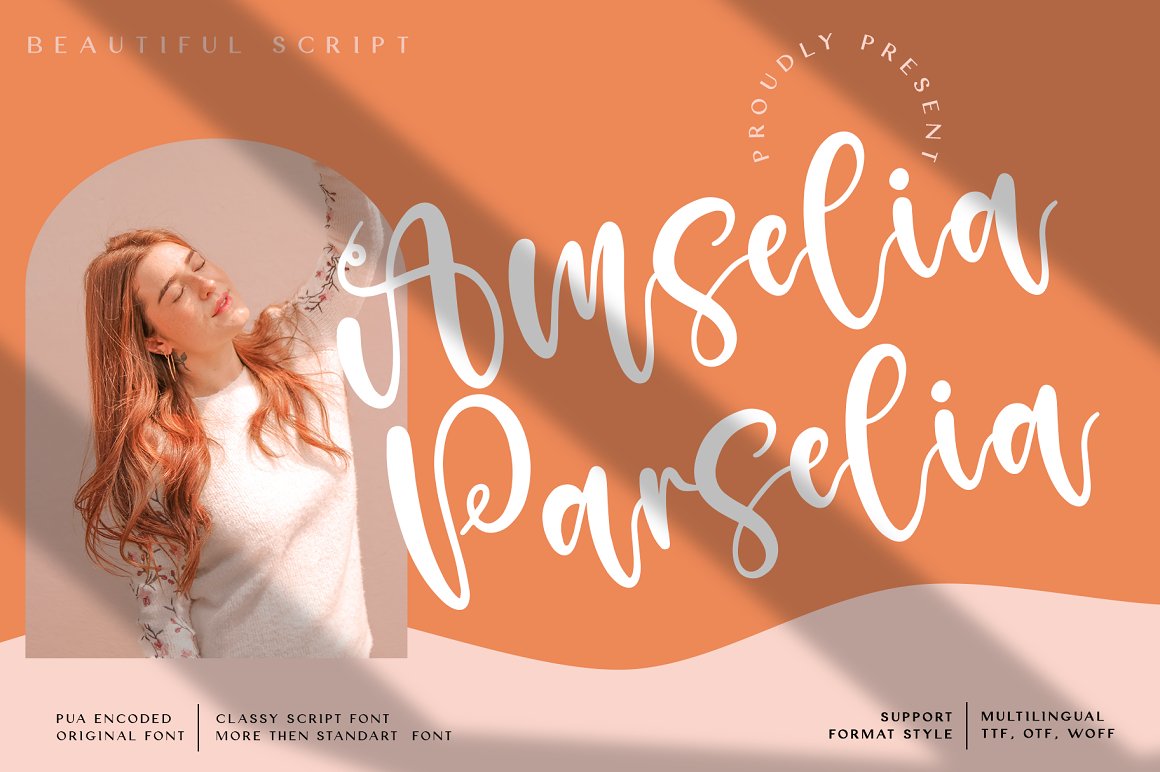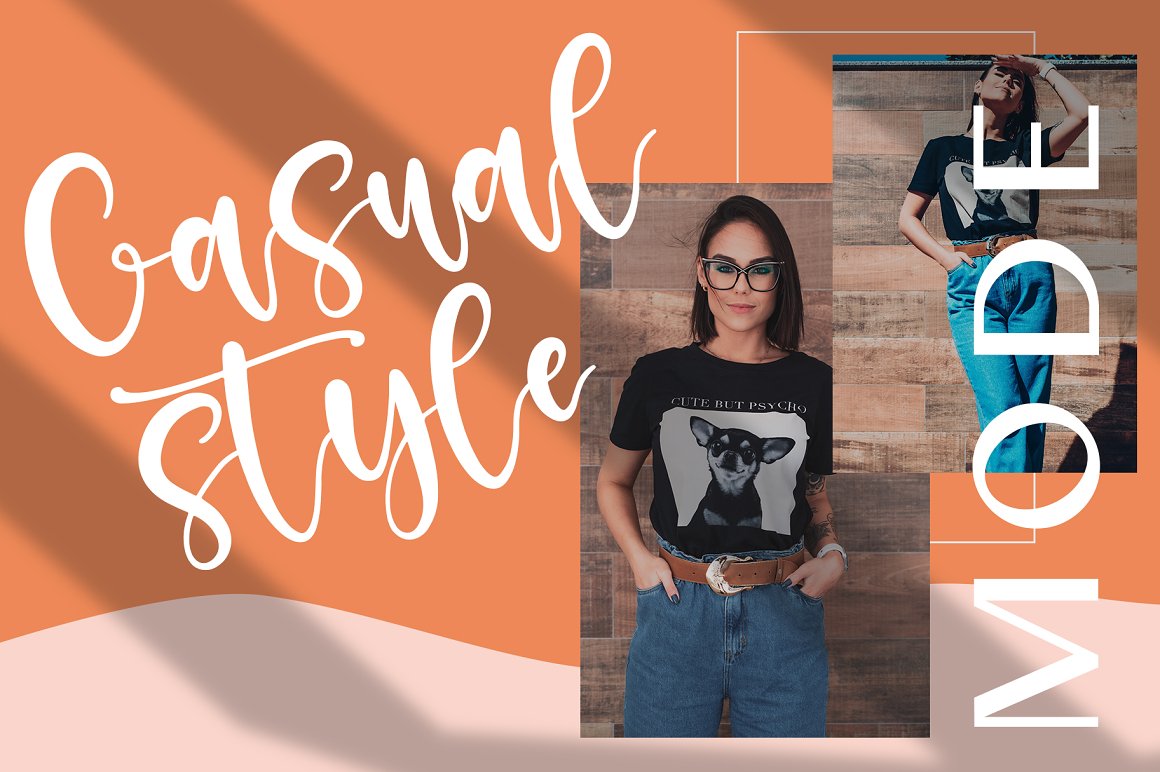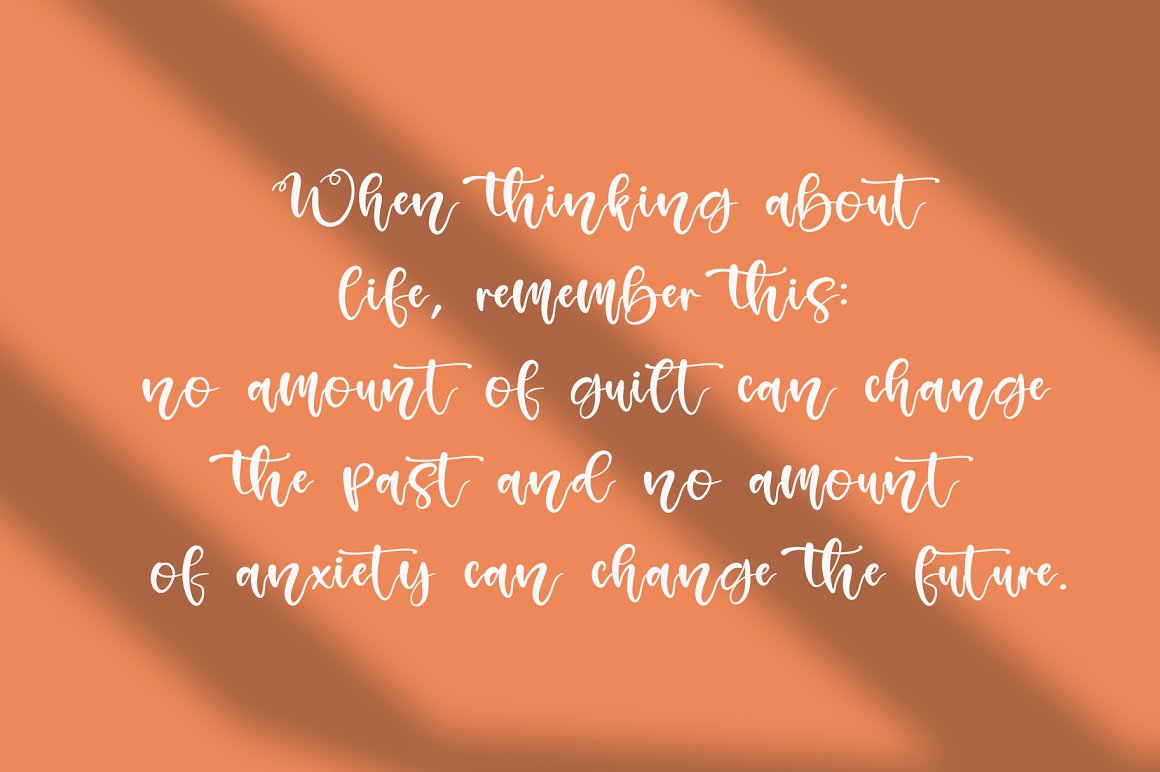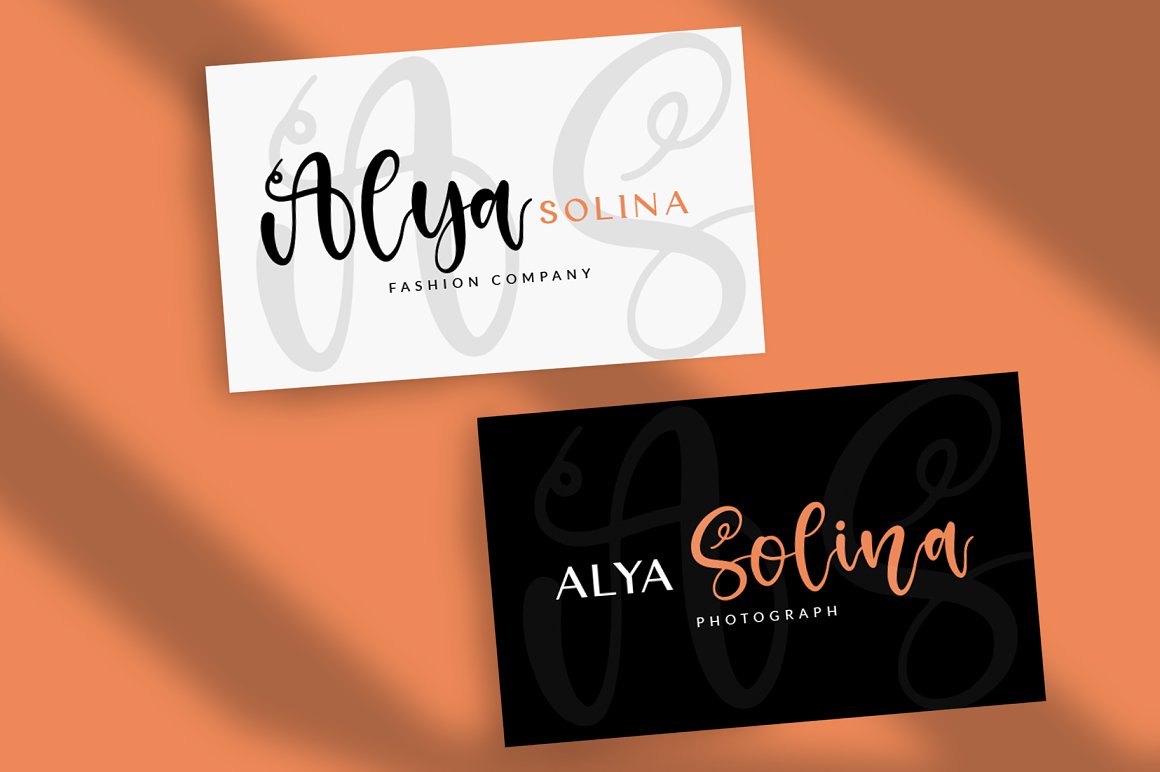
Amselia Parselia Font
Amselia Parselia Script Font
Amselia Parselia Font is a joyful script font. Fall for its ravishing style and use it to create gorgeous wedding invitations, beautiful stationary art, eye-catching social media posts, and much more!